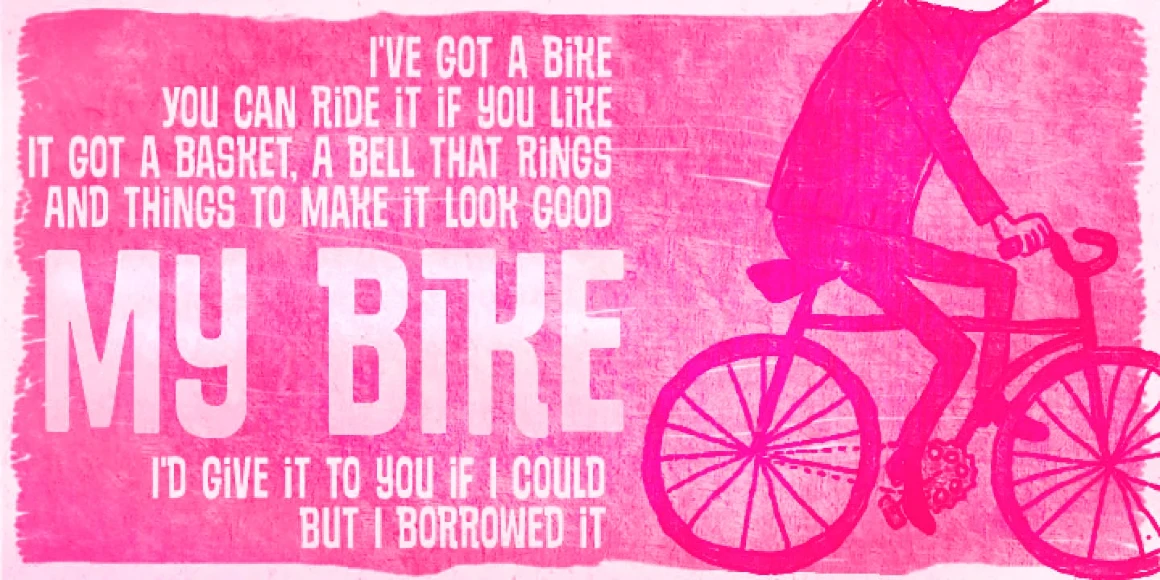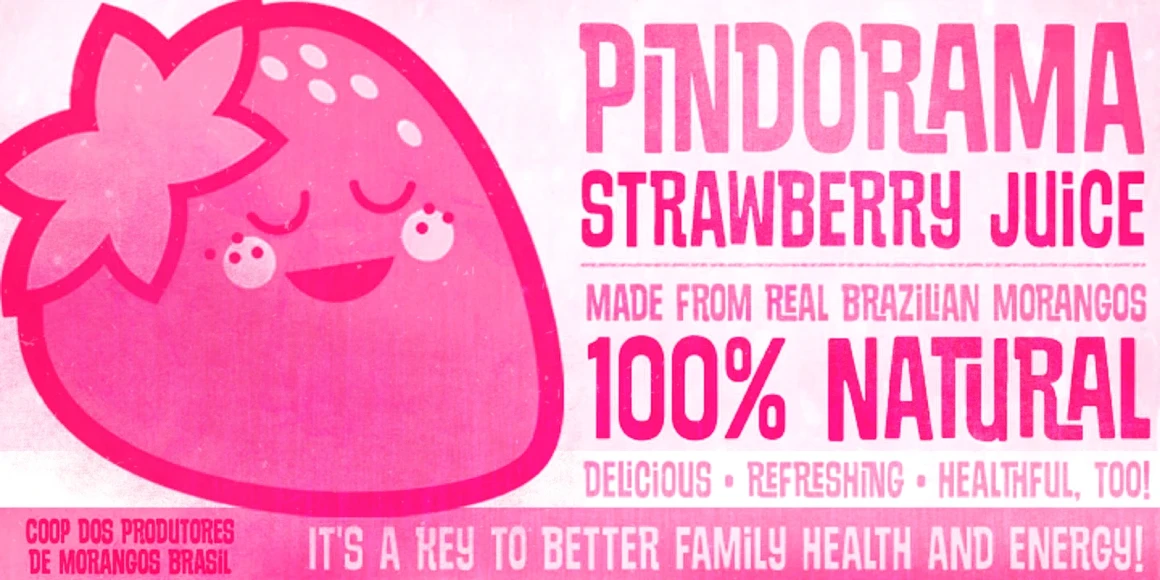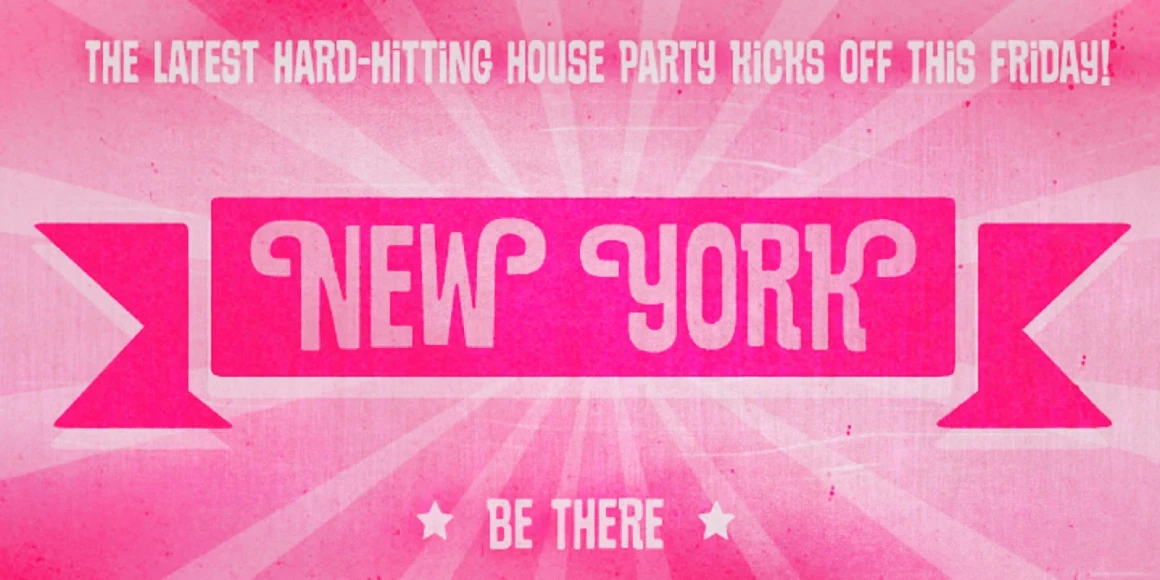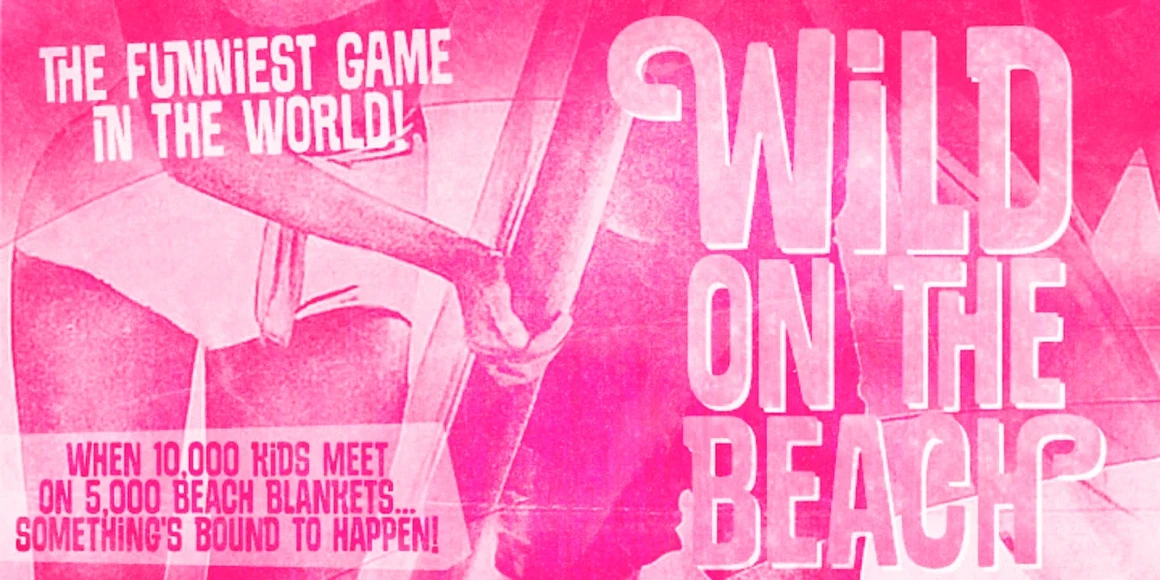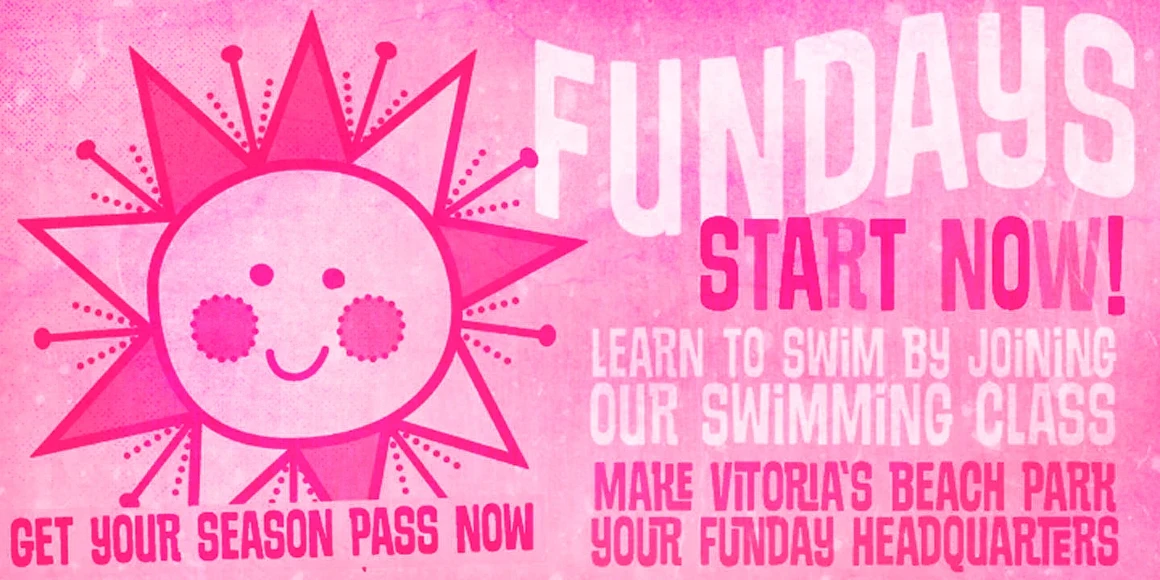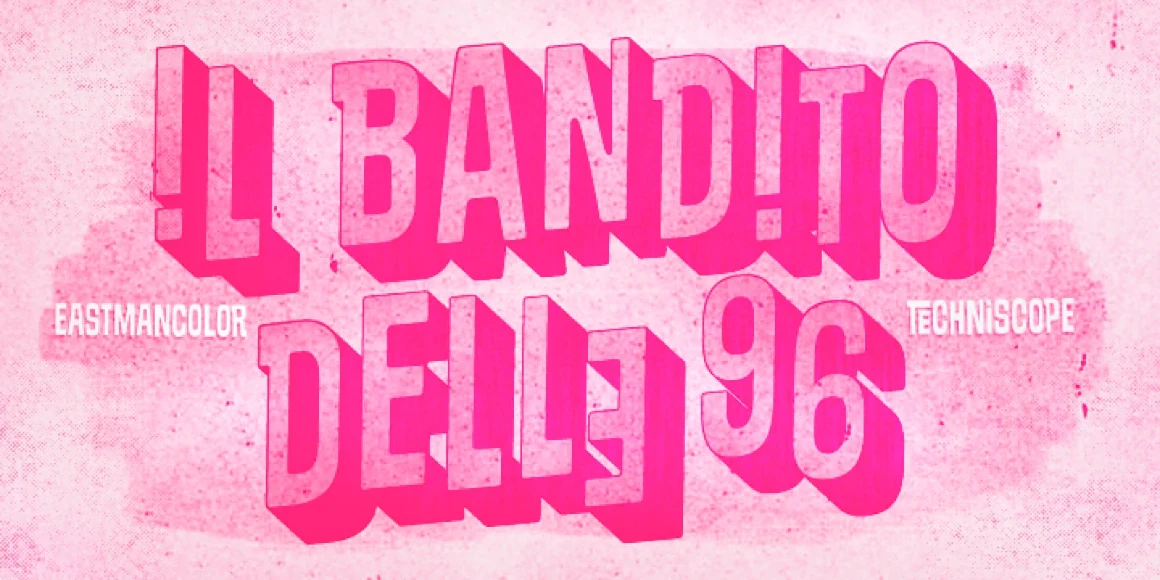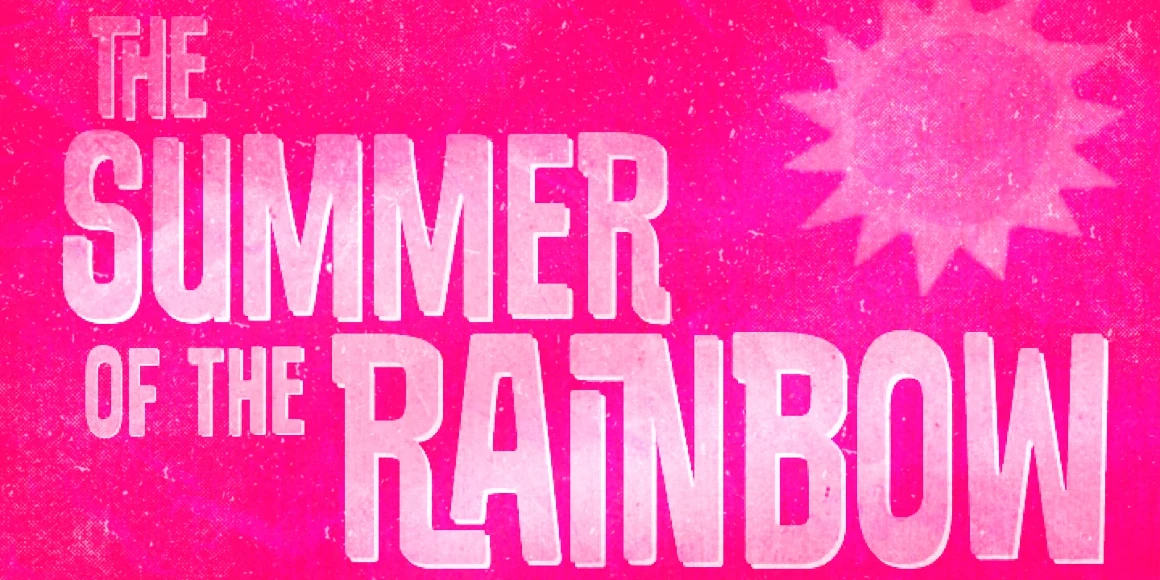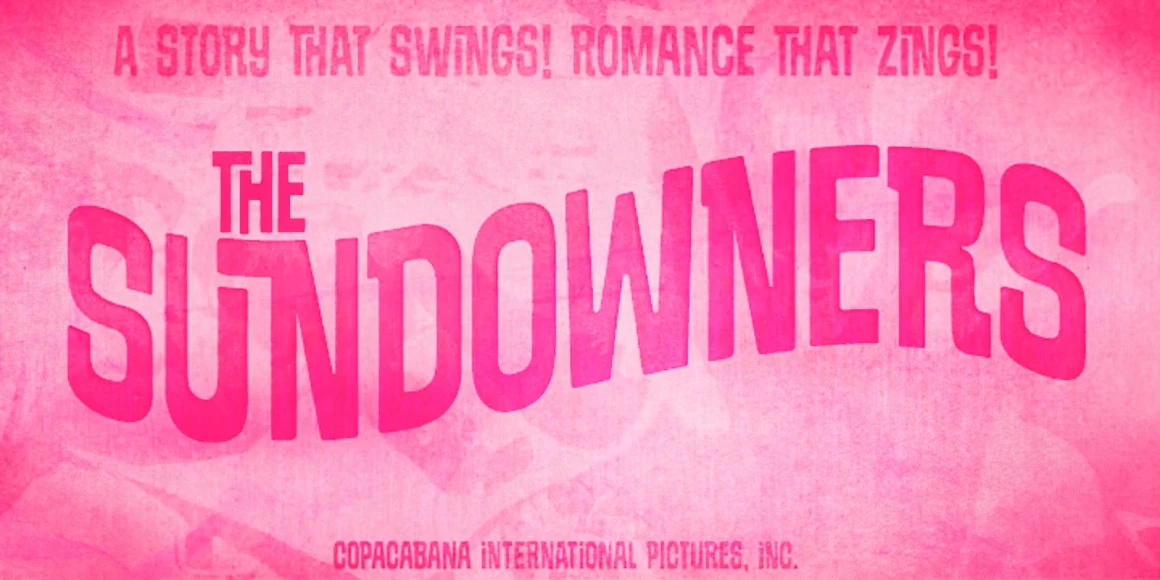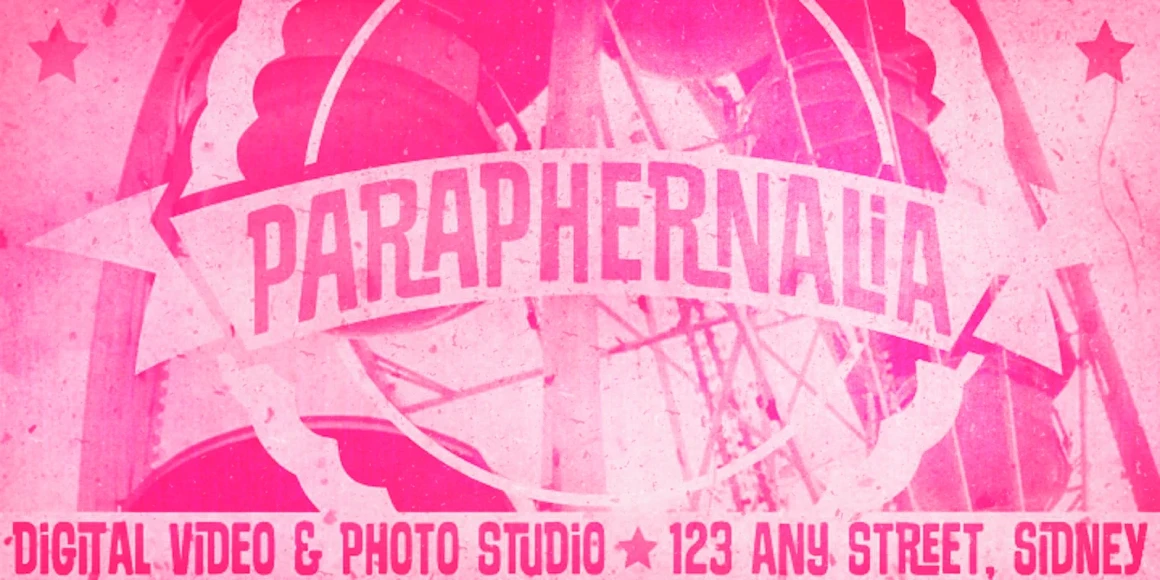
Sundowners
Sundowners Medium
Sundowners is a boldly quirky unicase sans with a nod to retro design. With a pocketful of cool interlocking glyphs to amp up the rhythm and add more versatility for those days when your work needs a groovier mood. It also has a handful of amusing initial and terminal swash forms — and a couple of ornaments, too! Inject your packaging, album art, movie posters, board games, advertisements, animations, and comic books with humor and fun by using Sundowners.